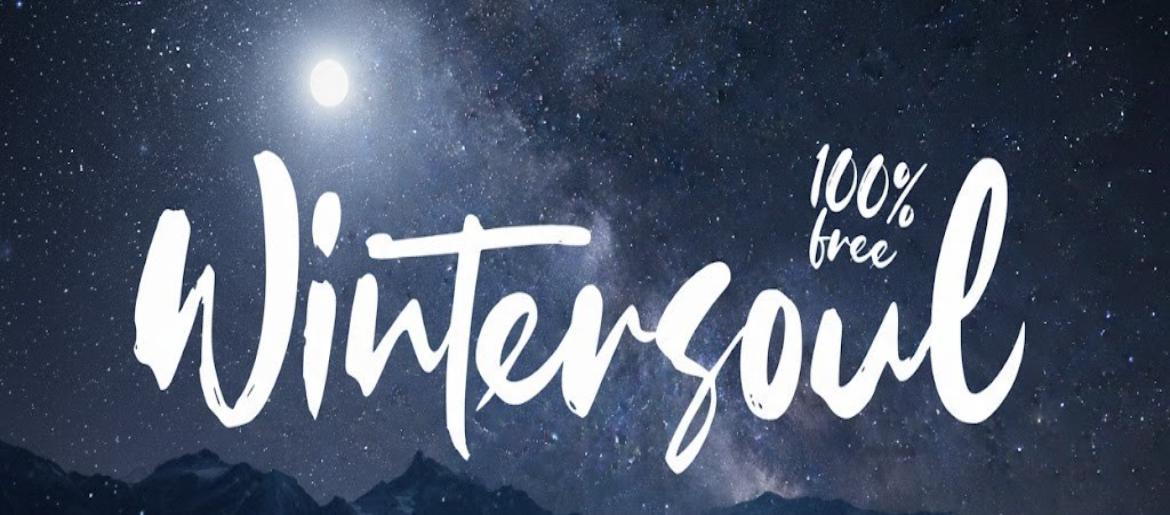
Wintersoul Font
Wintersoul Font is a decorative display typeface inspired by frosty textures and winter-themed aesthetics. It features sharp, icy details and expressive letterforms that create a cold, atmospheric mood. Ideal for holiday designs, fantasy artwork, posters, and themed branding, it delivers strong seasonal character and stands out as a stylish and thematic choice among creative free fonts collections.
➤ Font Name: Wintersoul
➤ Designer: Garisman Studio
➤ Style: Handwritten